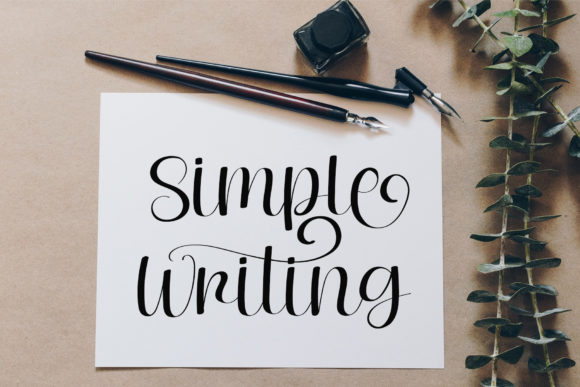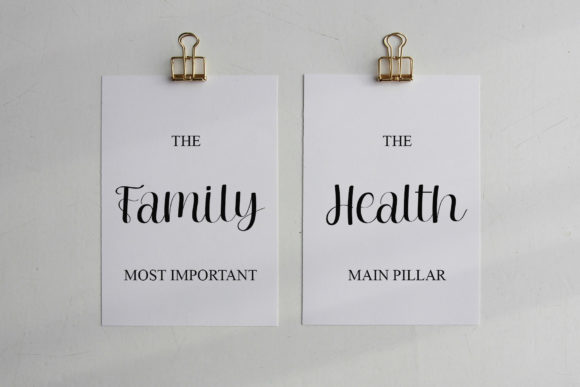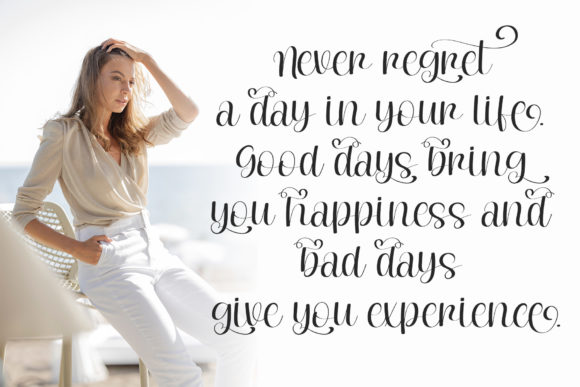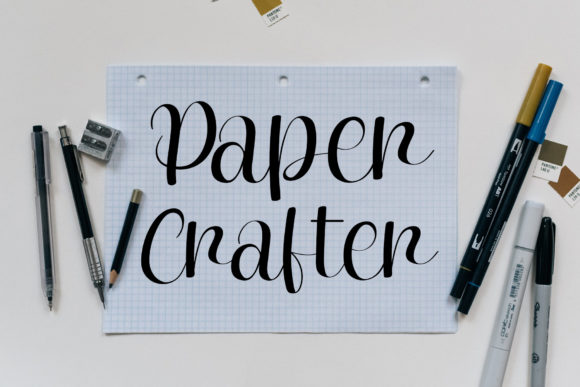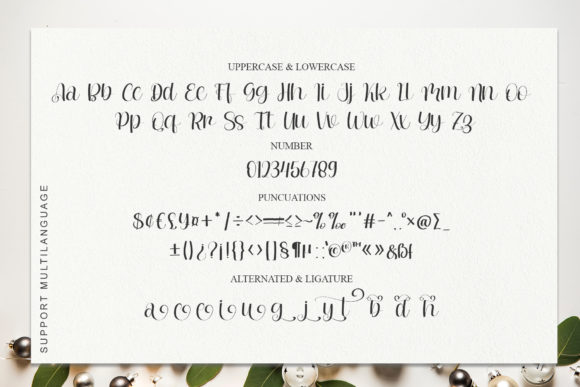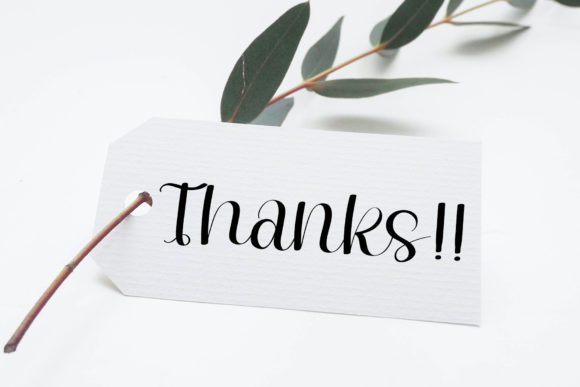
Agrestic Font: Adding a Touch of Romance to Your Designs
Agrestic is an enchanting handwritten font that has captured the hearts of designers and crafters alike. This versatile script font has a wide spectrum of applications, ranging from greeting cards to headlines, and is guaranteed to add a romantic feel to your next project. In this article, we’ll dive into the world of Agrestic Font, exploring its features, uses, and benefits, as well as provide tips on how to make the most of this beautiful font.
The Charm of Agrestic Font
Agrestic Font is a beautifully crafted handwritten font that exudes elegance and sophistication. Its flowing curves and delicate strokes make it perfect for creating romantic and whimsical designs. The font’s unique charm lies in its ability to evoke emotions and add a personal touch to any project. Whether you’re designing a wedding invitation, a greeting card, or a blog post, Agrestic Font is sure to make your work stand out.
Features of Agrestic Font
- Handwritten script: Agrestic Font is a handwritten script font that mimics the look of handwritten text.
- Versatile: This font is suitable for a wide range of applications, from formal to informal designs.
- Romantic feel: Agrestic Font adds a touch of romance and whimsy to any project.
- Easy to read: Despite its ornate appearance, Agrestic Font is easy to read and understand.
Uses of Agrestic Font
Agrestic Font is a versatile font that can be used in a variety of design projects, including:
- Greeting cards: Agrestic Font is perfect for creating romantic greeting cards for special occasions like Valentine’s Day, weddings, and anniversaries.
- Wedding designs: This font is ideal for wedding invitations, wedding stationery, and other wedding-related designs.
- Blog posts: Agrestic Font can add a touch of elegance and sophistication to your blog posts, making them more engaging and readable.
- Headlines: Use Agrestic Font to create eye-catching headlines that grab attention and add a touch of whimsy to your designs.
Benefits of Using Agrestic Font
Using Agrestic Font in your designs offers several benefits, including:
- Unique look: Agrestic Font gives your designs a unique and distinctive look that sets them apart from others.
- Emotional connection: This font has the ability to evoke emotions and create a personal connection with your audience.
- Flexibility: Agrestic Font can be used in a variety of design projects, from formal to informal designs.
Tips for Using Agrestic Font
Here are some tips for using Agrestic Font effectively in your designs:
- Use it sparingly: Use Agrestic Font sparingly to add emphasis and create visual interest in your designs.
- Pair it with other fonts: Pair Agrestic Font with other fonts to create a unique and visually appealing combination.
- Adjust font size: Adjust the font size to create visual hierarchy and add emphasis to your text.
| Font Name | Agrestic Font |
| Author | Bintang Studio |